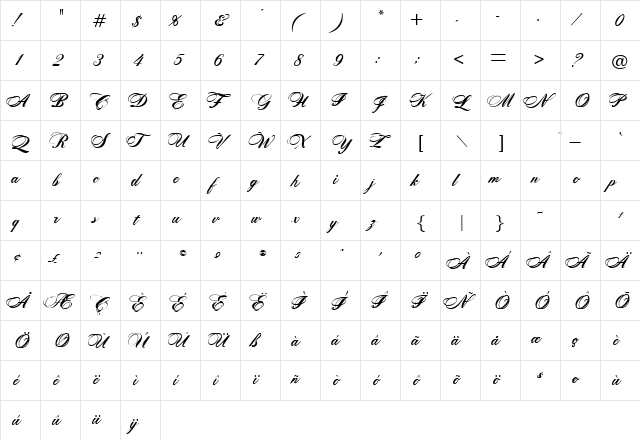
Zither Script Normal
| Foundry | Alexandra Gophmann (rusification font Zither script) |
| Designer | Alexandra Gophmann |
Design Context for Zither Script Typeface
Zither Script flows with the natural rhythm of handwritten lettering, making it ideal for designs that call for warmth and personal expression.
Font Pairing: Combine Zither Script with a simple geometric sans for maximum contrast — the tension between flowing curves and clean structure is a classic typographic pairing.
Pro Tip: Pair Zither Script with a clean sans-serif for supporting text. The contrast between fluid script and geometric structure creates an elegant typographic hierarchy.